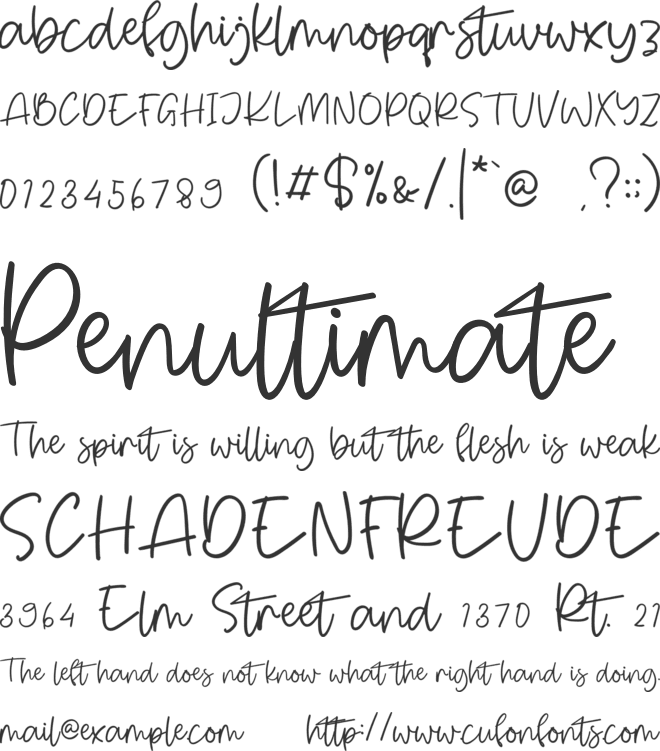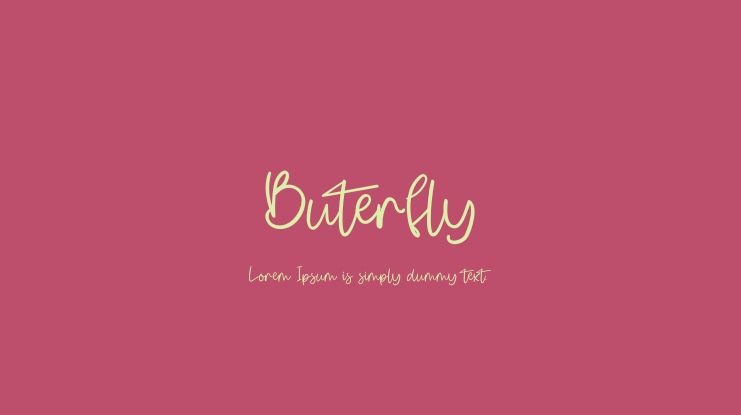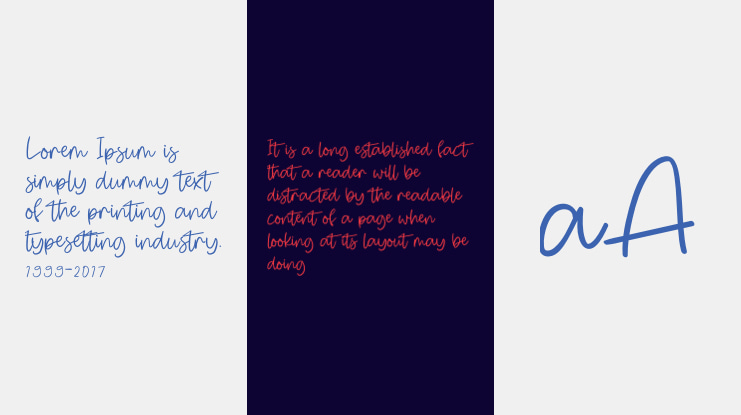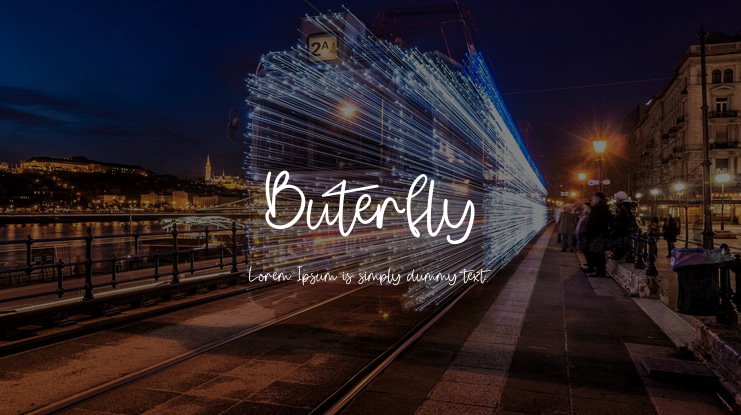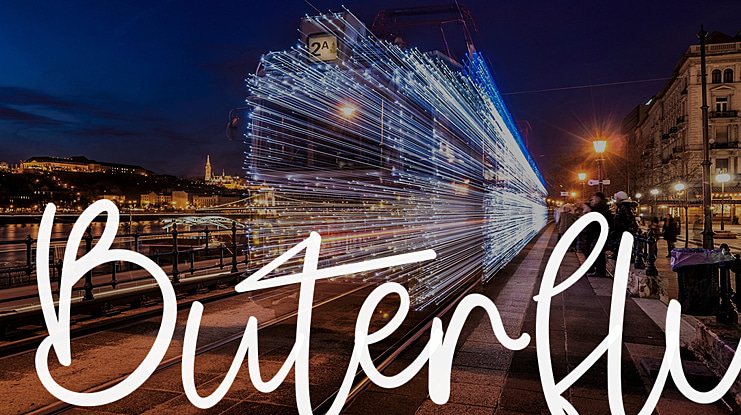
Buterfly Font
Buterfly is an incredibly unique handwritten font. Masterfully designed to become a true favorite, this font has the potential to bring each of your creative ideas to the highest level!